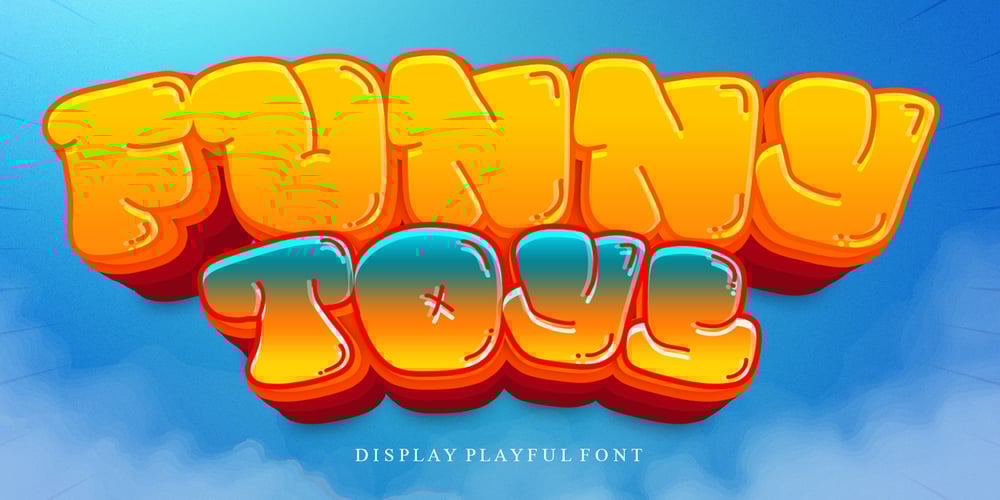
Funny Toys Font Family was designed by Ahmad Afandi and published by Letterafandi Studio. Funny Toys contains 2 styles and family package options. Funny Toys is a fun and bubble display font. No matter the topic, this font will be an incredible asset to your fonts’ library, as it has the potential to elevate any creation.